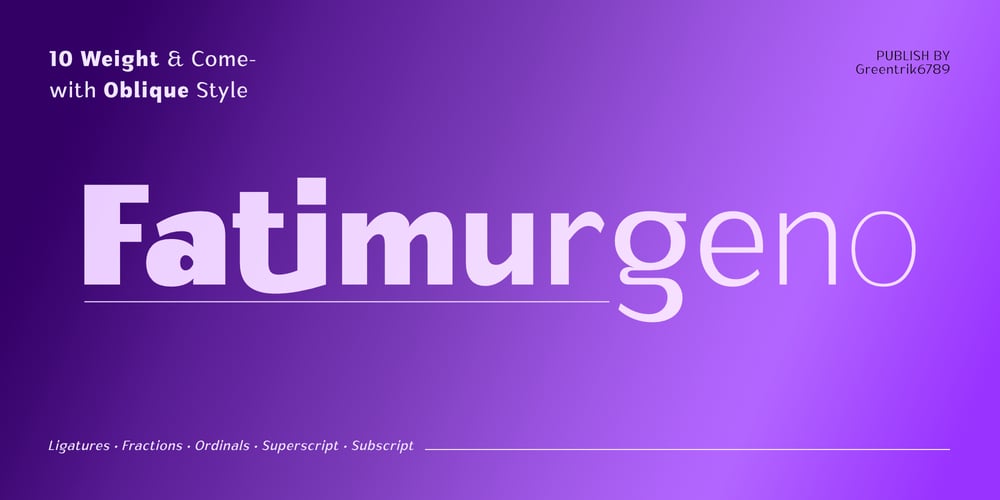
Fatimurgeno Font Family was designed by Tri Kuncoro and published by Greentrik6789. Fatimurgeno contains 22 styles and family package options. Sans serif fonts, hundreds, or maybe thousands. There have been a lot of sans serif fonts that have been created and circulated on the internet. This font is here to increase the number of sans serif fonts circulating on the internet to be even more.Fatimurgeno is a various sized, clean and modern looking sans serif font. Whether you’re using it for crafting, digital designing, presentations or greeting cards making, it’s perfect! The Thick version will be perfect for a clean and strong look, and the slim version will be perfect for a soft and seductive look.